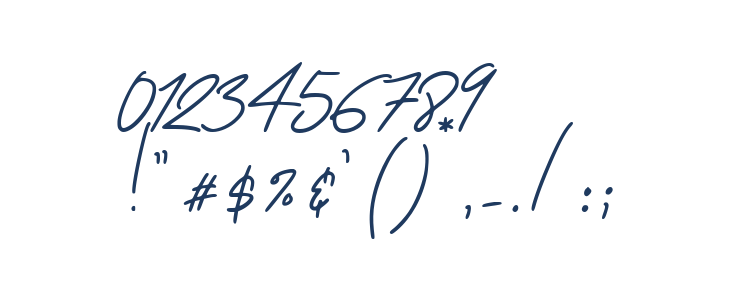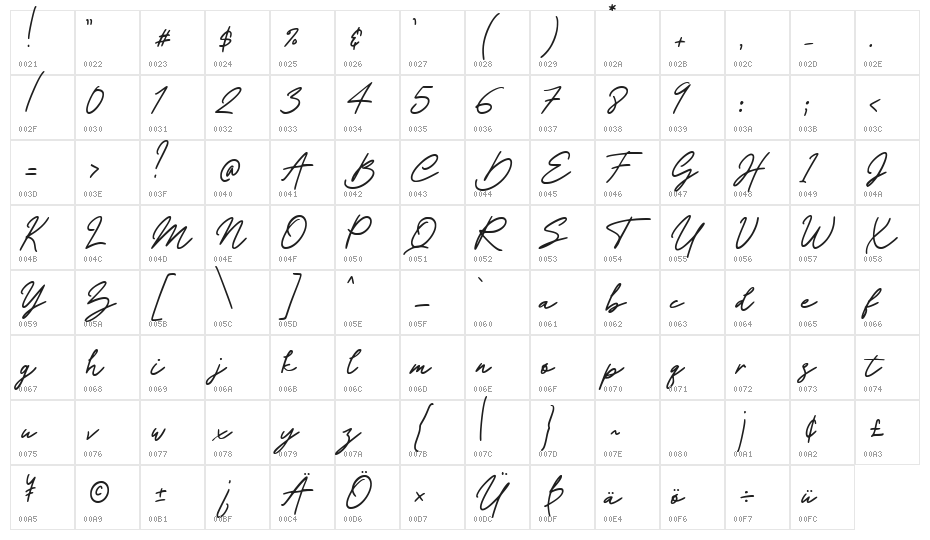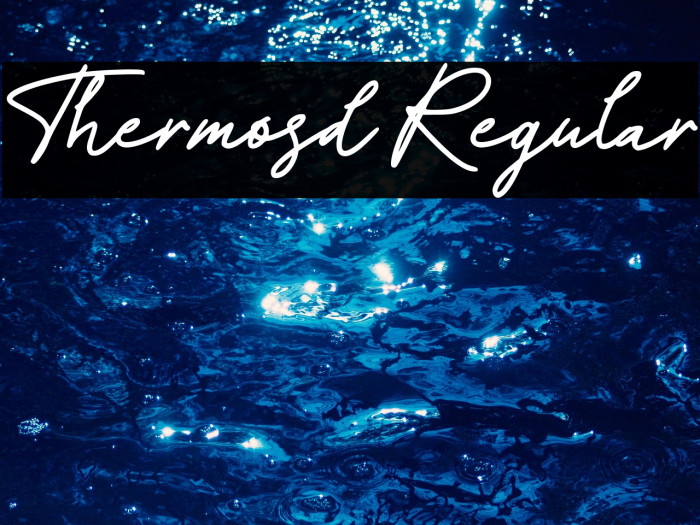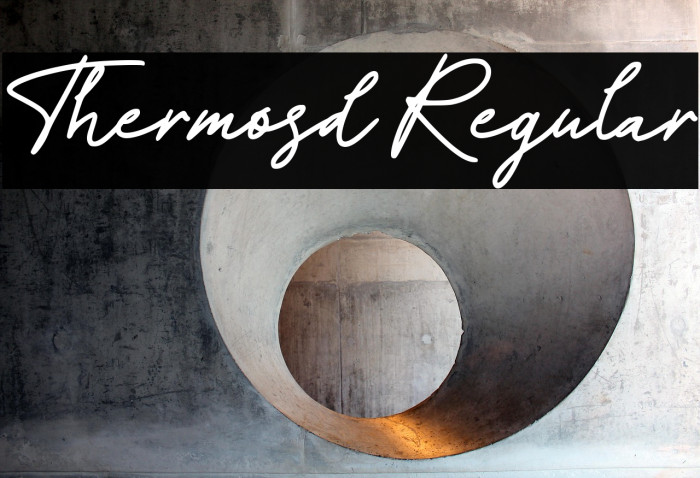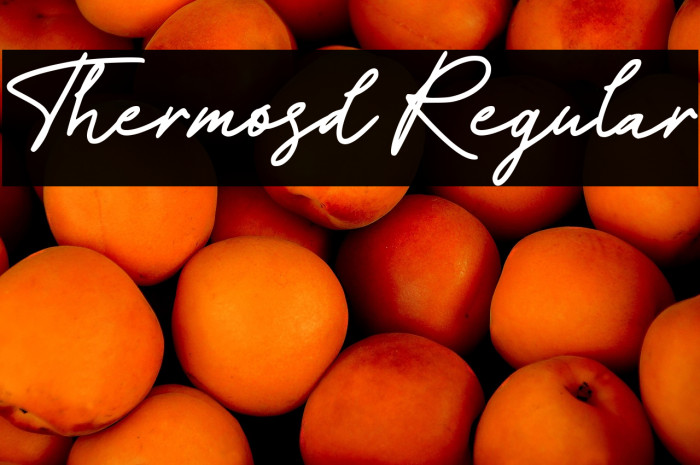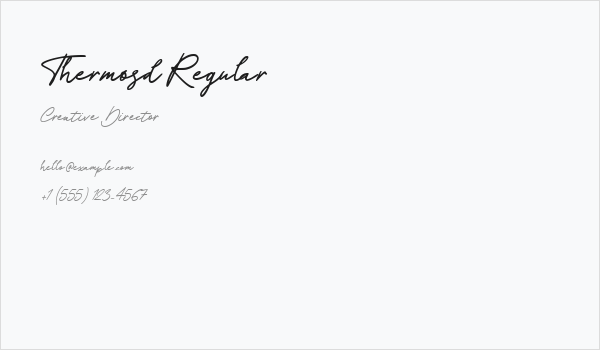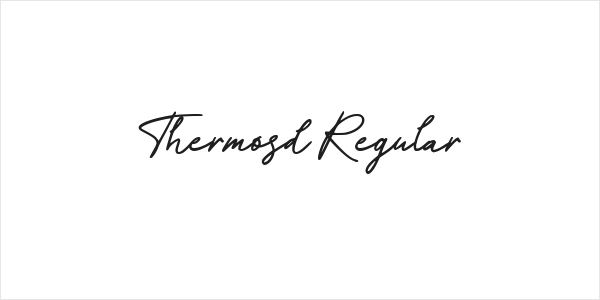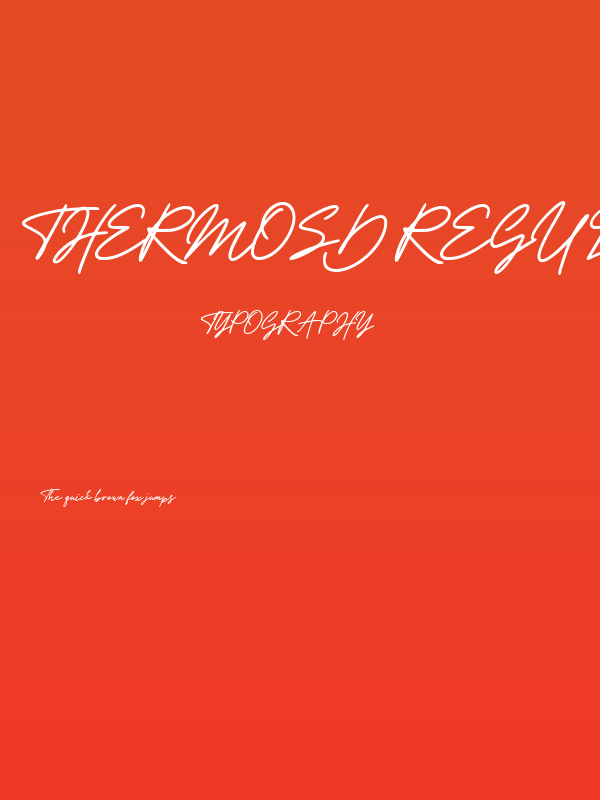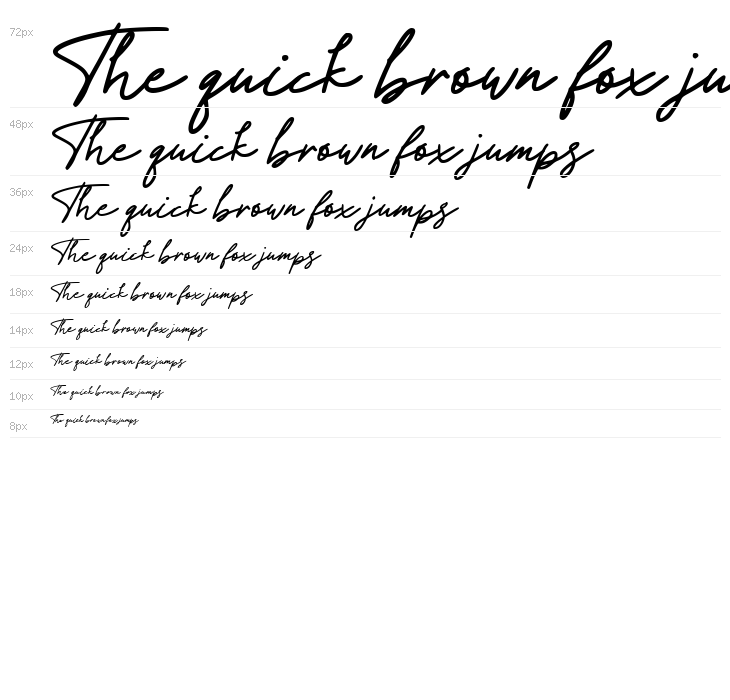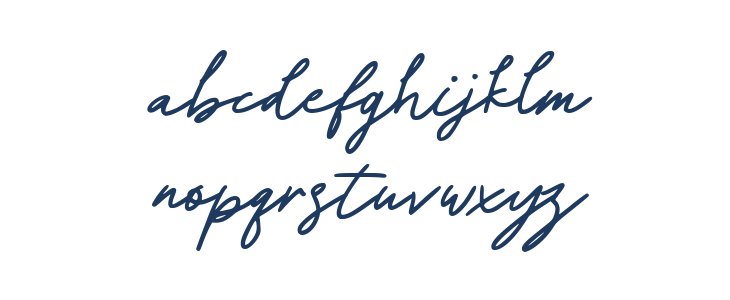
Thermosd Regular Font
Thermosd Regular Description
This font exudes a dynamic and energetic feel with its fluid, cursive style. The letters are interconnected, creating a seamless flow that mimics natural handwriting. The strokes are smooth and consistent, with a slight slant that adds to its elegant appearance. The uppercase letters maintain a bold presence, while the lowercase characters are more delicate, offering a nice contrast. Numbers and special characters are crafted with the same attention to detail, ensuring uniformity across all elements. This font is perfect for projects that require a personal touch or a sense of sophistication.
| Overall Style | Elegant |
| Use Case | Logos, Invitations, Personal Branding |
| Proposed Projects | Ideal for wedding invitations, personal branding, greeting cards, and elegant packaging designs. |